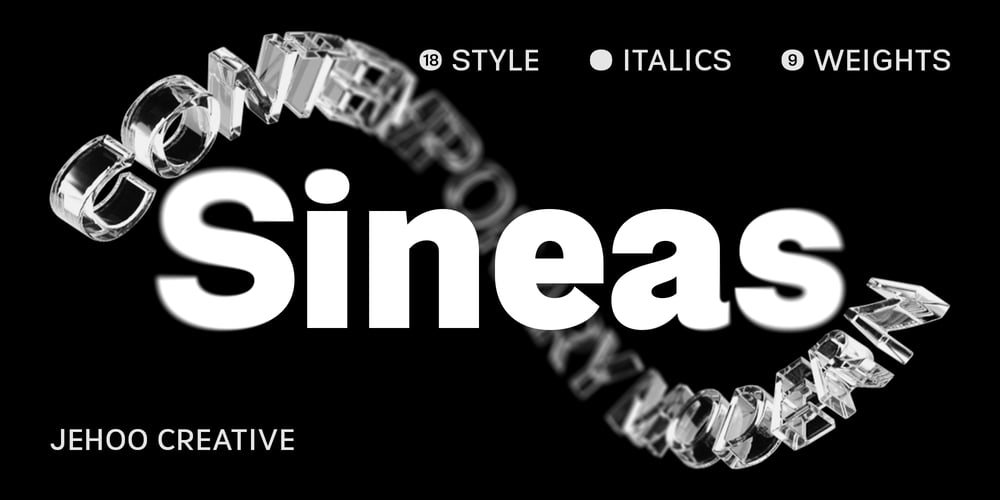
JHC Sineas
JHC Sineas font
JHC Sineas Font Family was designed by Anwar Patihan and published by Jehoo Creative. JHC Sineas contains 18 styles and family package options. JHC Sineas: A Versatile Grotesque Sans Serif FontElevate your design projects with JHC Sineas, a contemporary Grotesque sans serif typeface that blends sophistication with versatility. With 9 weights and accompanying italics, JHC Sineas offers a total of 18 distinct styles, making it perfect for any application—from bold headlines to delicate body text.Key Features: With a diverse range of weights and stylish italics, JHC Sineas ensures clarity and impact in every design. Its advanced OpenType features, including ligatures, alternate characters, and various stylistic sets, provide endless creative possibilities, allowing you to add nuance and flair to your typography.Whether you’re designing for print, digital, or branding, JHC Sineas adapts seamlessly to your needs, combining modern aesthetics with timeless functionality. Make your typography stand out with JHC Sineas—where versatility meets modernity.